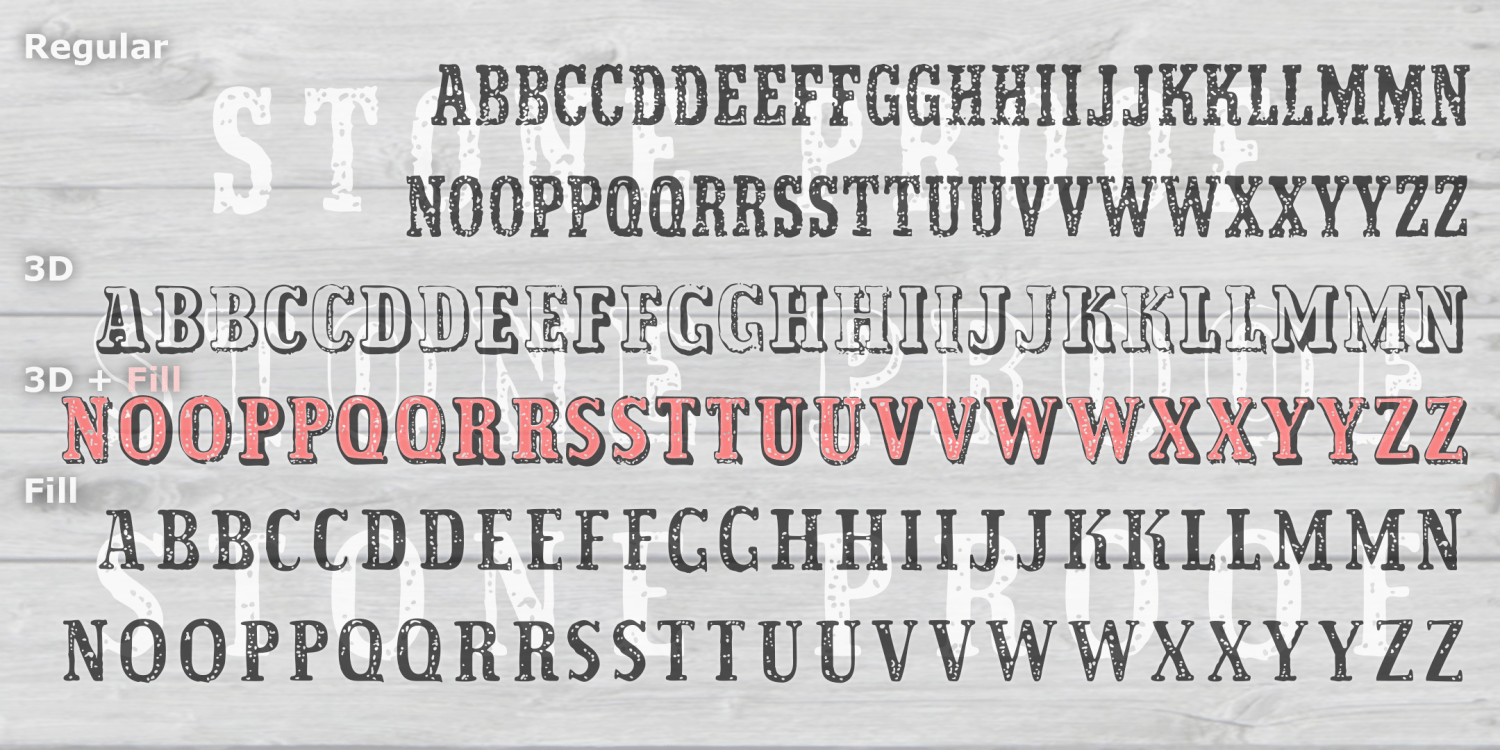
About Stone Proof
The STONE PROOF fonts are weathered and worn, suggesting primitive typeset, rough paper, and aged surfaces. The set includes Regular, 3-D, and a special Fill font to work with the 3-D. There are two versions of each letter, in the upper- and lowecase…